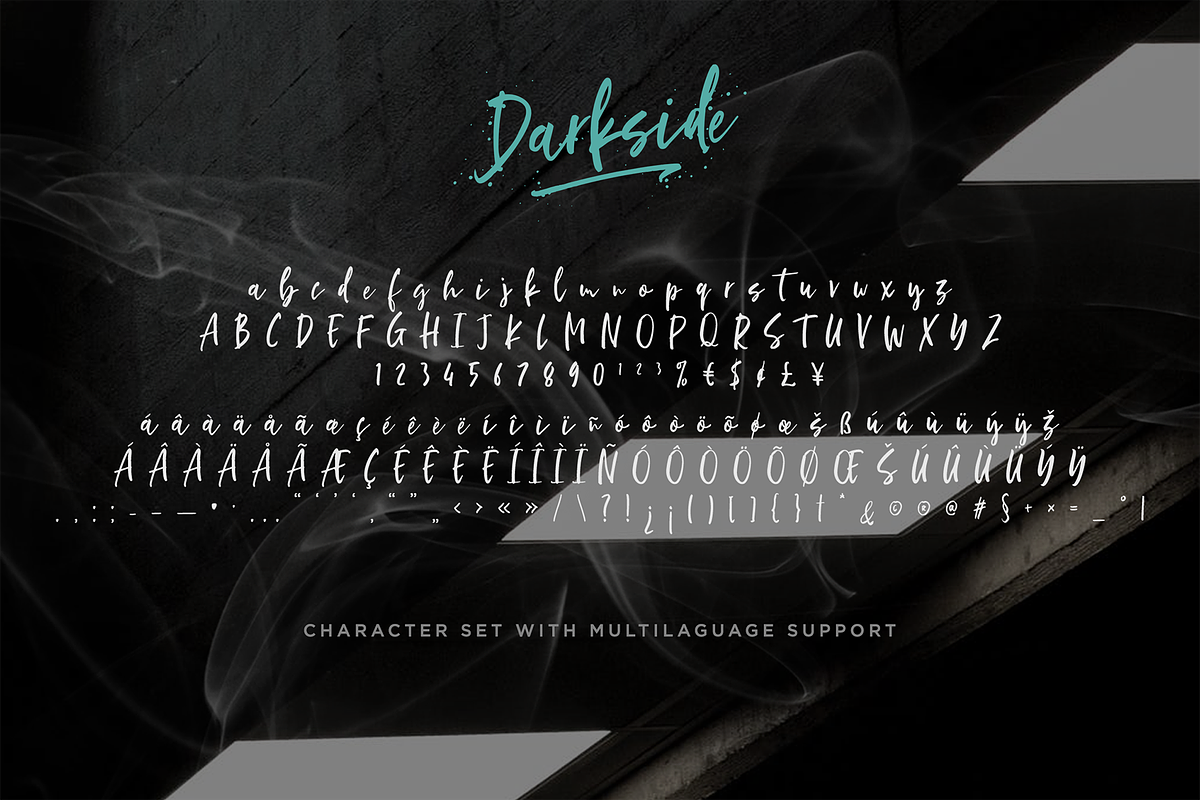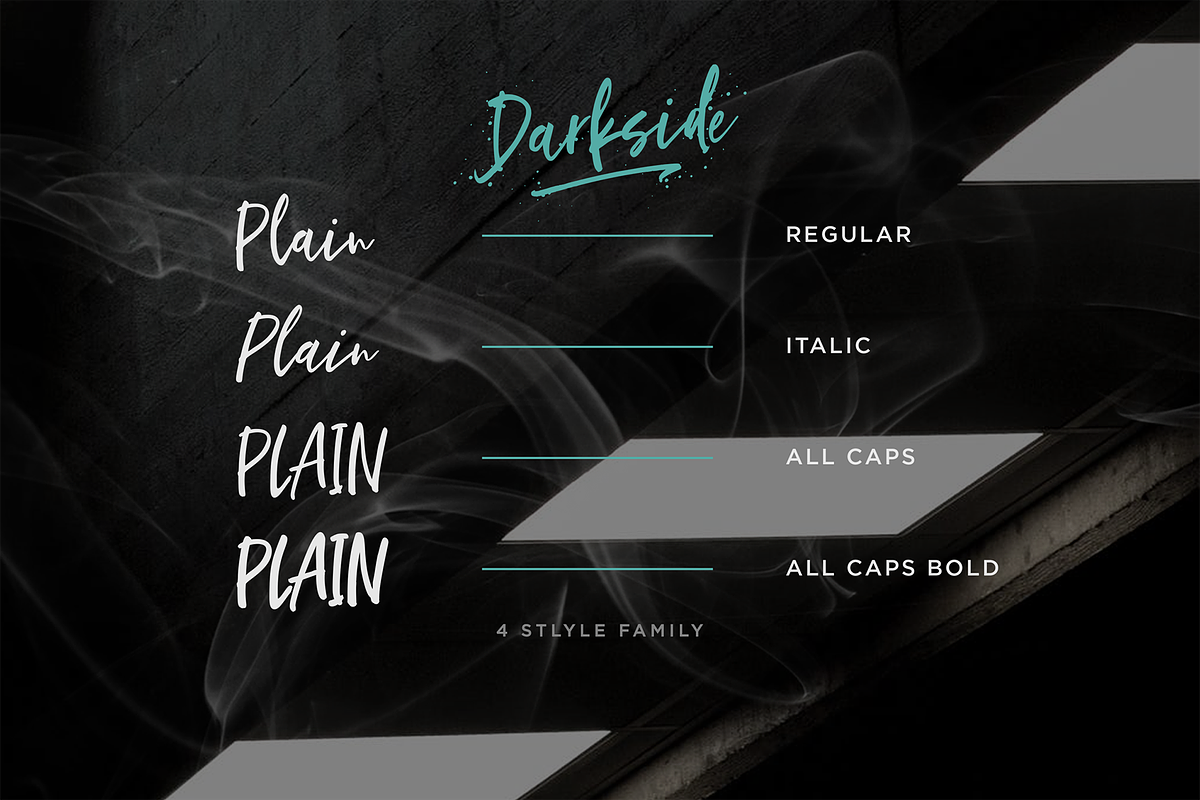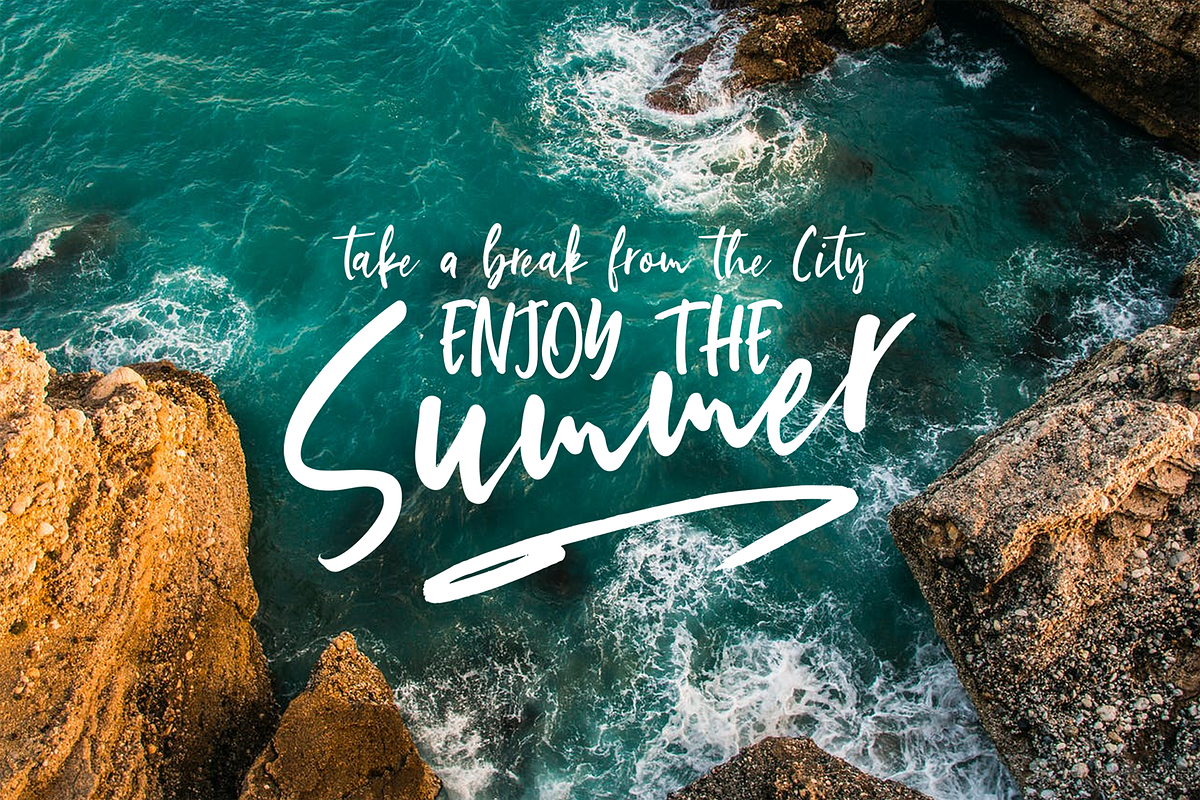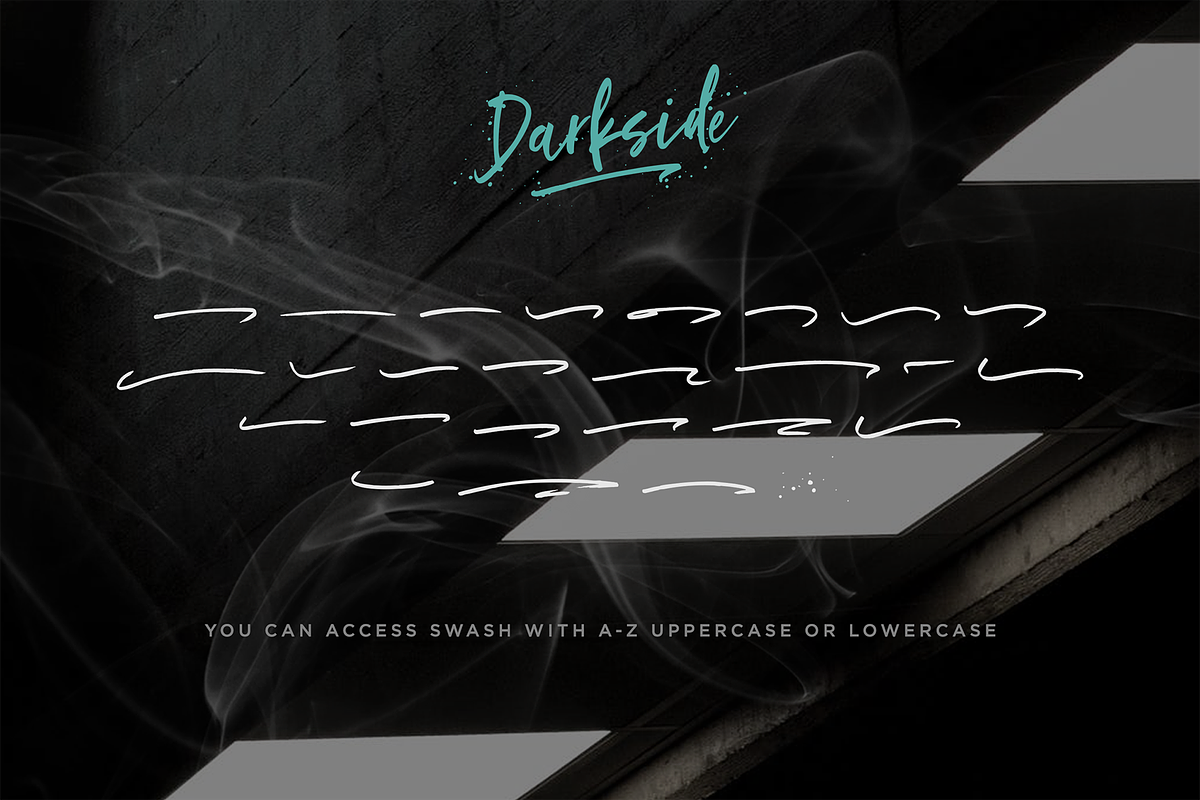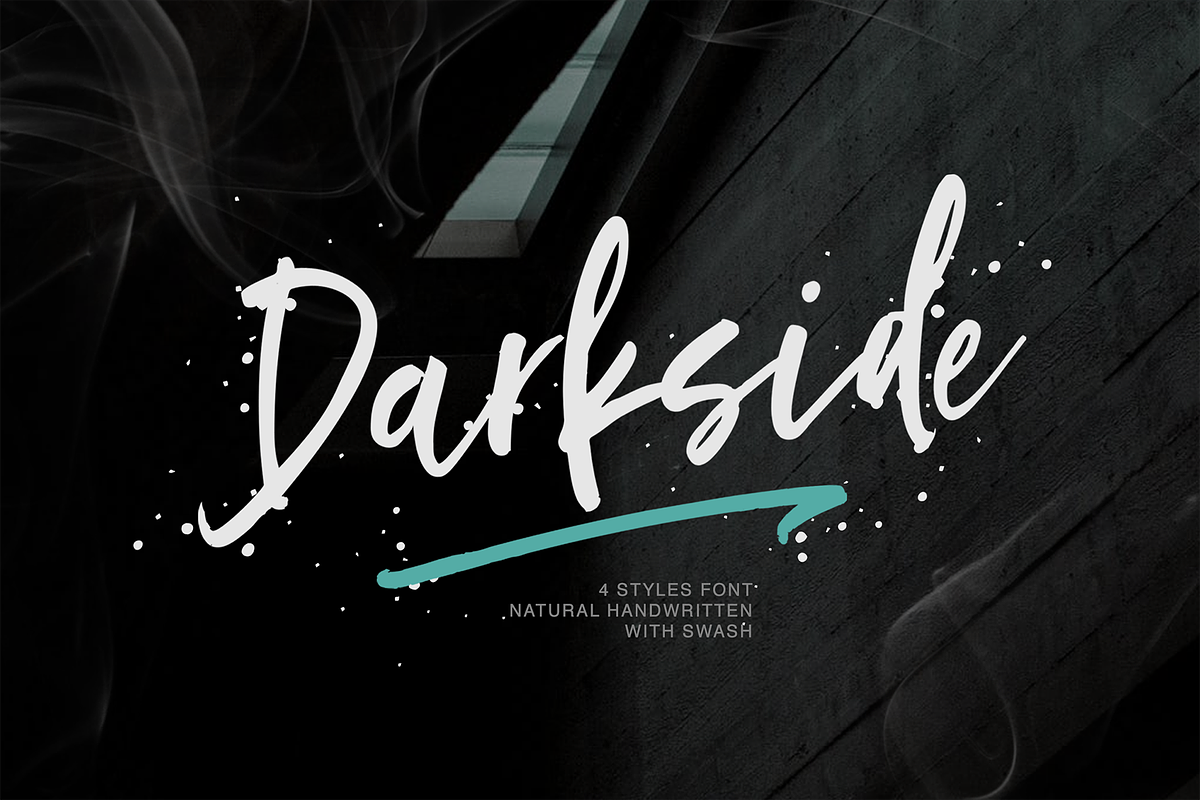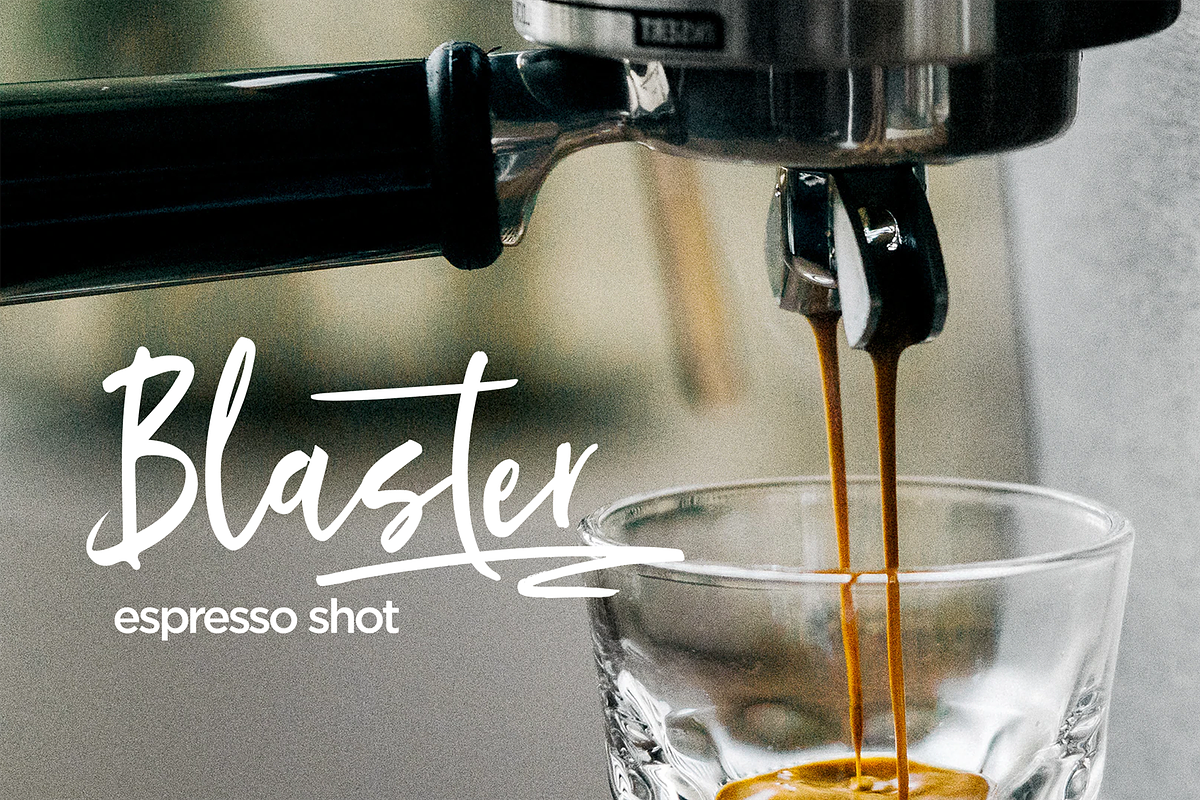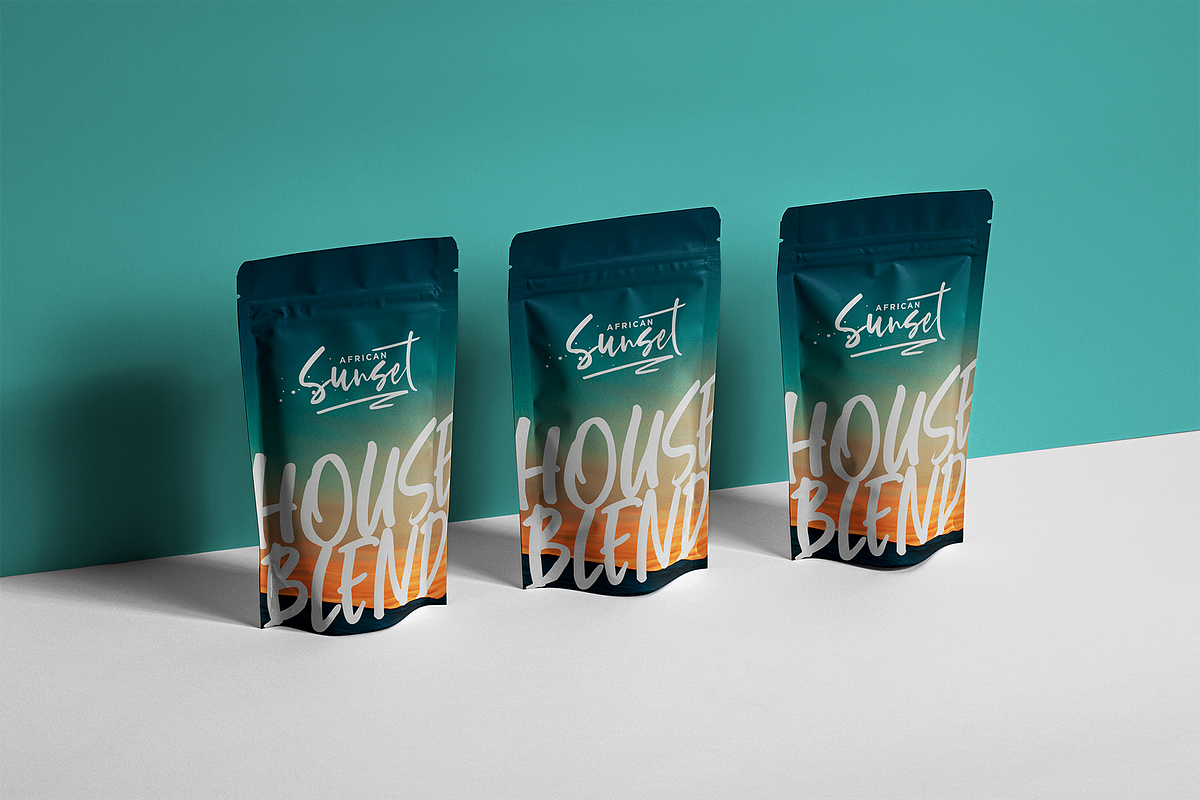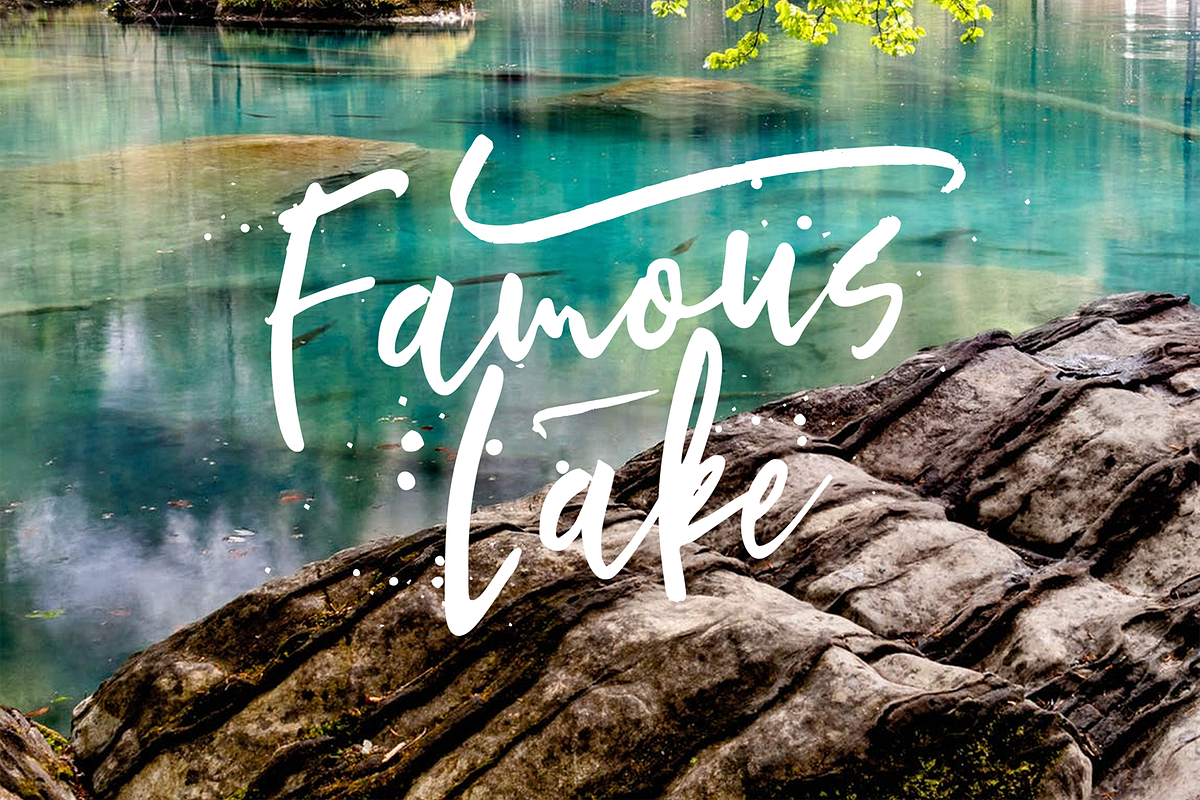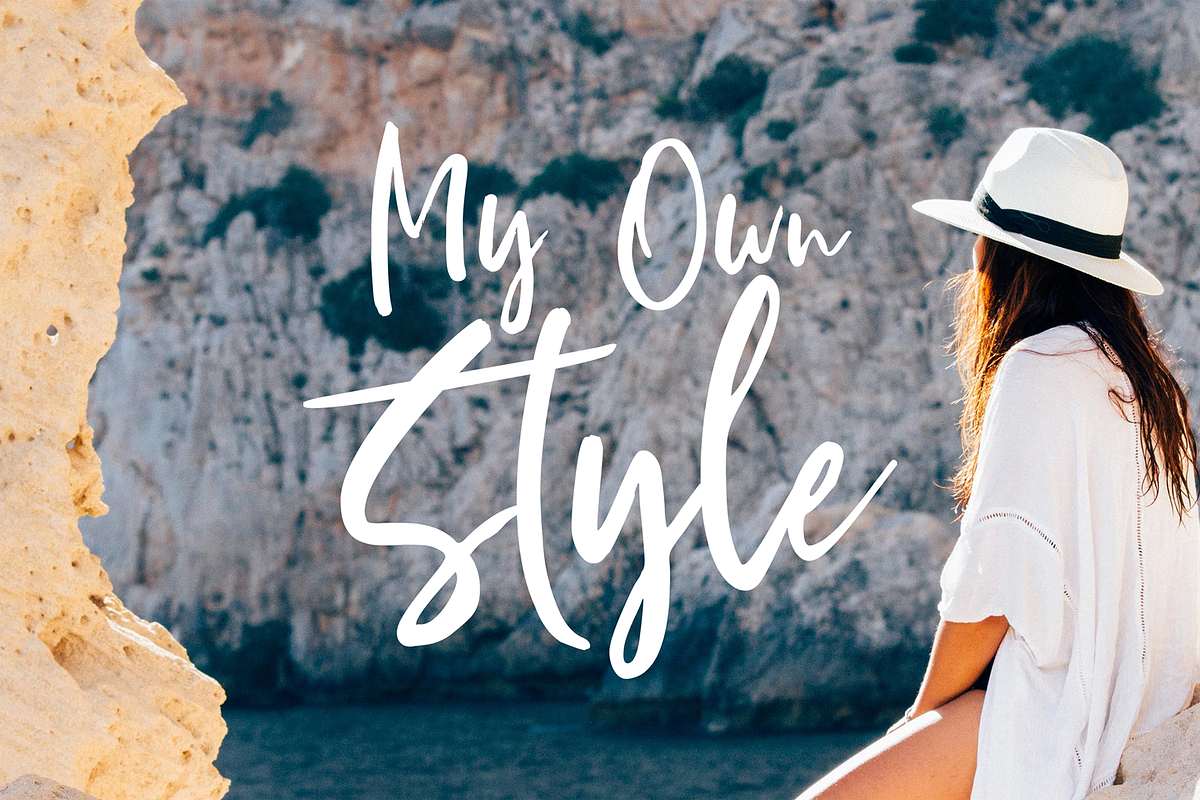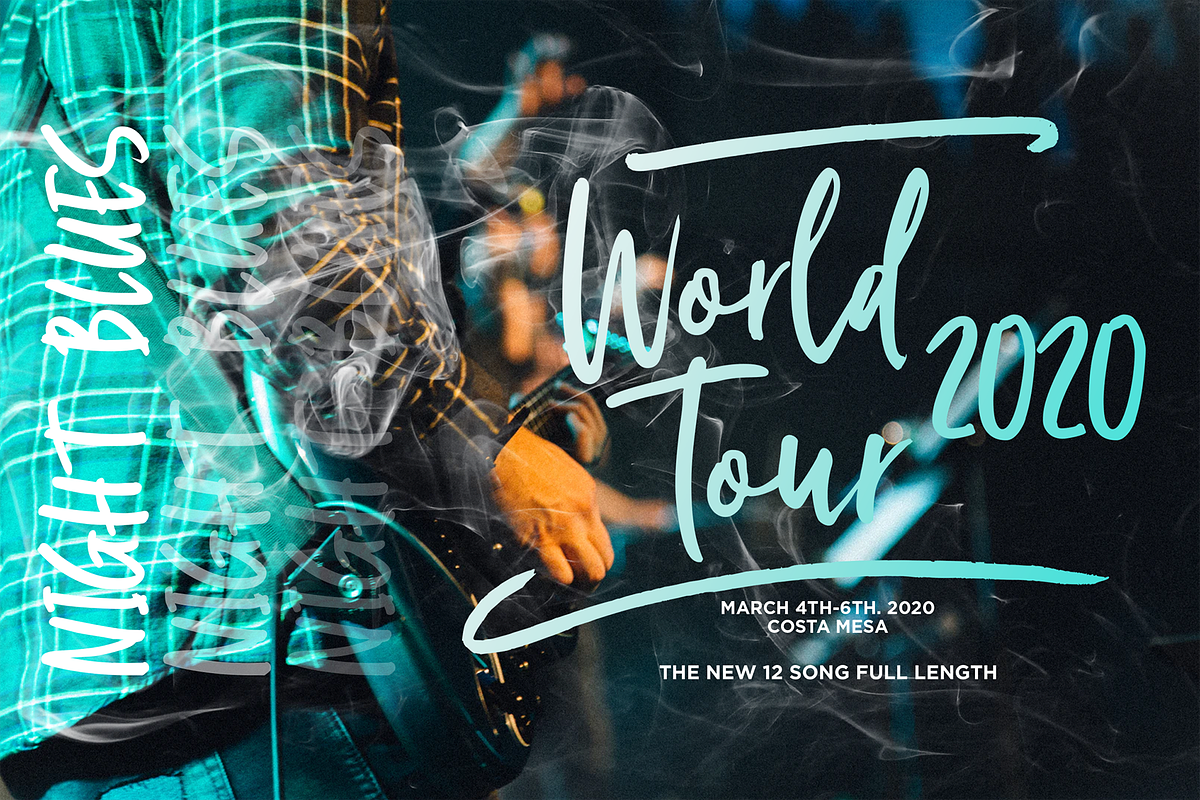
Darkside
Darkside is natural brush font with 4 styles will give a casual impression on your design. With original handmade quality, your design will look more prominent.
- Darkside
- Darkside Italic
- Darkside All Caps
- Darkside All Caps Bold
- Swash.